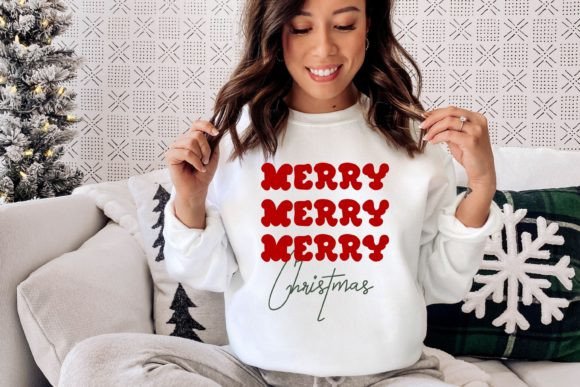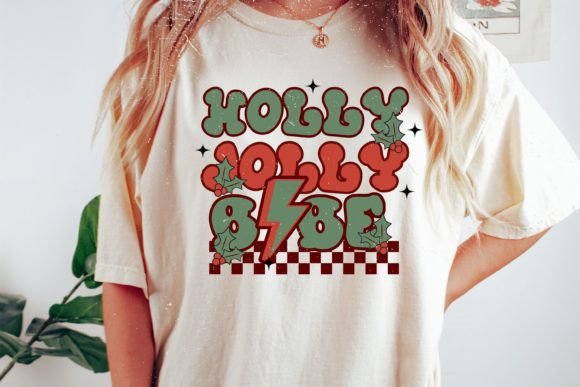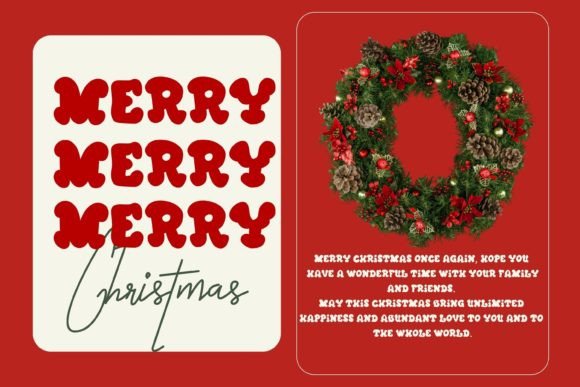
Introduction to Holly Jolly Vibes Font
Holly Jolly Vibes is an incredibly cute, and assertive display font.
Add it to each of your party invitations, gatherings, or pretty much any design that requires a touch of youth and joy .